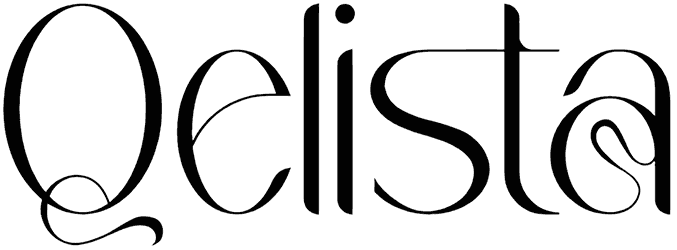
Royal Agustine Font
When a font is trying so hard to let you know it can handle your most luxurious projects, trust it. It has the word “royal” right in its name. Can’t you take the hint? Even if it wasn’t there, it’s quite obvious how great Royal Agustine would be for fancy occasions.
Sure, despite its strong classic vibes, any modern branding design can use the presence of Royal Agustine and all the elegance it offers for restaurants, art galleries, museums, etc.